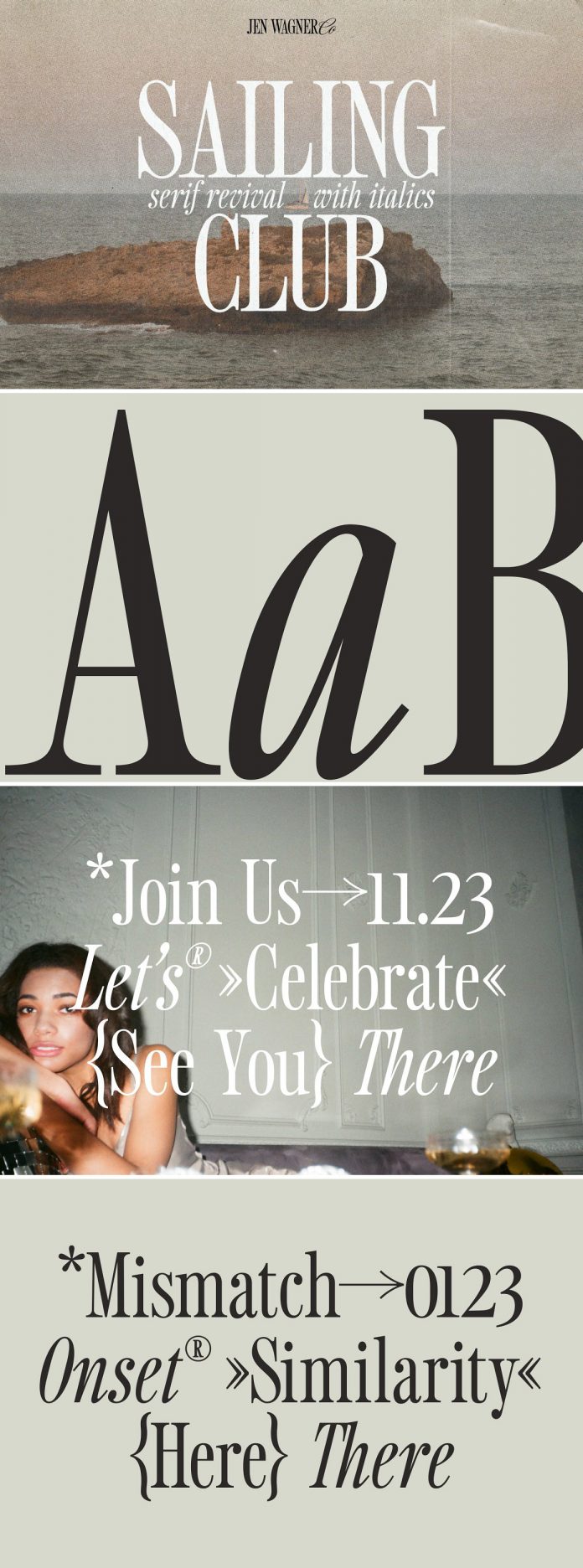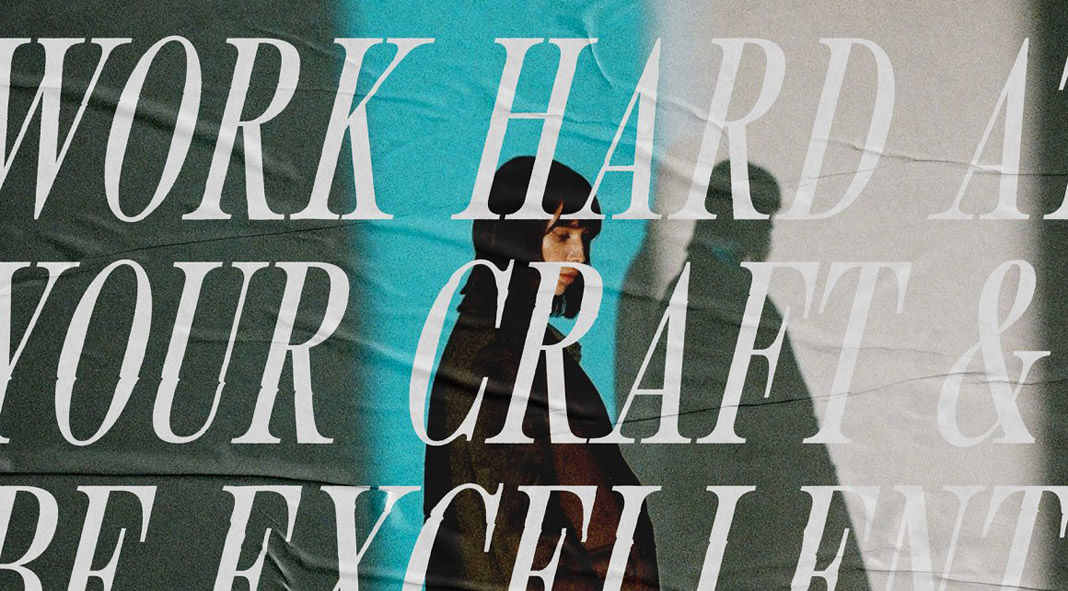
Sailing Club is a brand new nostalgic serif font inspired by the typography of the 1990s and early 2000s.
Jen Wagner always loves the style of the 1990s and early 2000s. Influenced by this nostalgic feeling, she has created Sailing Club, a beautifully nostalgic upper and lowercase serif typeface that works best for logos, headers, quotes, etc. The font is characterized by its tight kerning and a strong contrast between thin and thick lines.